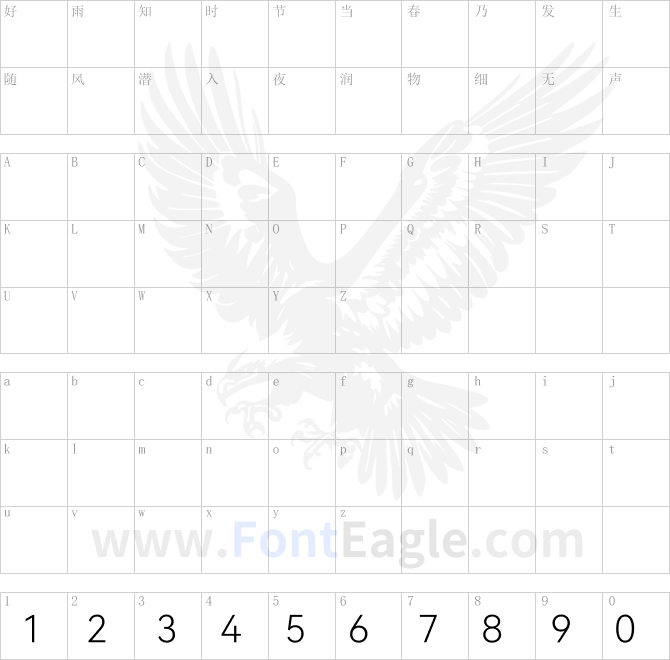
- Font name:HarmonyOS Sans Naskh Arabic Light
- Font Subfamily ID:HarmonyOS Sans Naskh Arabic Light Version 1.0
- Font Full Name:HarmonyOS Sans Naskh Arabic Light
- Postscript:HarmonyOS_Sans_Naskh_Arabic_Light